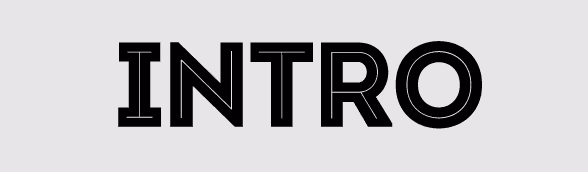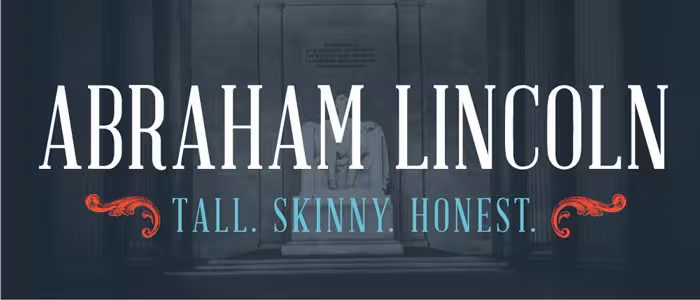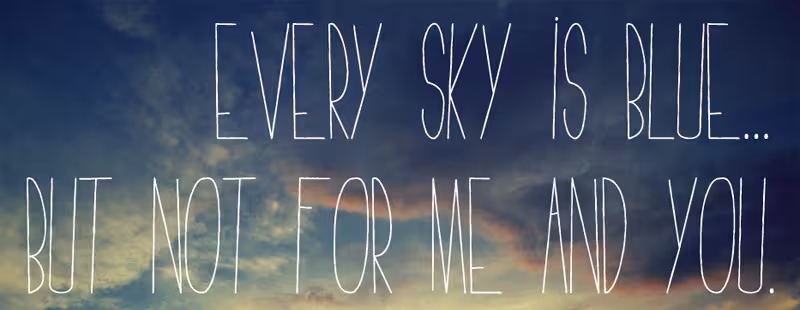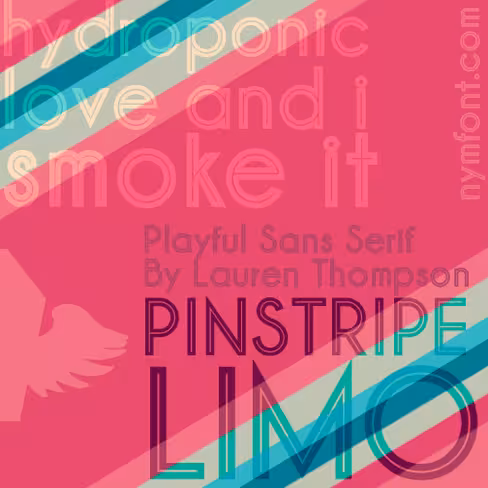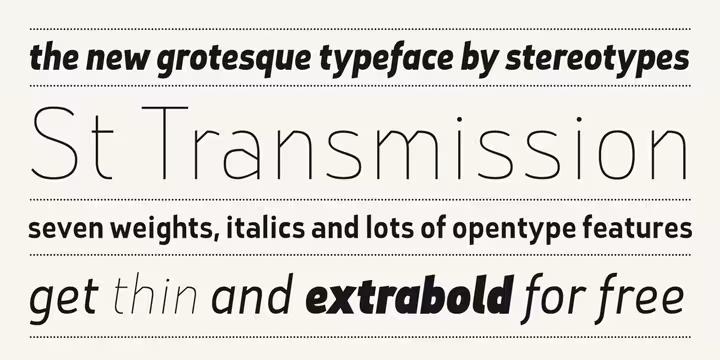
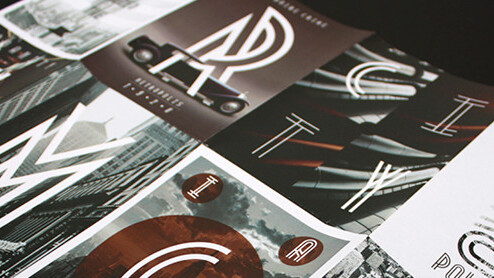
The art of type design is for a special breed of designer. The insane attention to detail required to create typefaces is enough to drive the average person crazy, as every subtle curve and rule matters.
If you’re a novice to the world of typography, you’ll most likely be familiar with text type, or fonts created to be legible and readable at small sizes. Adobe Caslon, for example, is a great text typeface for large amounts of text.
Display typefaces, on the other hand, are less about legibility, (though that’s still important), and more about personality, character and distinctiveness. They’re best for logos, signage and posters, all at larger sizes (around 30 points+). Back in January, we covered a list of 9 inspiring, free display typefaces for you to use in your projects. Now, we’re back with 7 more free display typefaces for any project imaginable:
Cassannet
Atipo, a multi-disciplinary studio from Spain, has recently released an entire typeface dedicated to the charming work of A.M. Cassandre, a French poster artist and typographer. The font is completely free, and only requires a tweet to download, though you also have the option to contribute a donation in support of the creators. Read our full review of the font here.
Metropolis
Metropolis comes from the the industrial movement of the 1920′s where skyscrapers were born. “Using a double line technique, I wanted to create my own Art Deco style font that represented this era. The result is a bold, bumptious typeface with a stolidly calm disposition.”
Intro
What distinguishes Intro is the strongly expressed geometric makeup and structure. The basic letters of the Alphabet like “A”, “O” and “H” are built on principles of simple geometric forms – triangles, circles and squares. In contrast to Futura, which possesses similar styling, Intro preserves the characteristic sharpened edges of the “А”, “V” and “W” letters even in its boldened form.
Faustina
Faustina is a quirky, hand-drawn display face that has a strong indie/hipster appeal. It’s also reminiscent of Where The Wild Things Are.
St Transmission 200
St Transmission 200 is another peculiar face, but with has more precision than Faustina. The interestingly straight lines in the a, n, m and r really define this typeface.
Pinstripe Limo
Although Dafont’s renderings make the font look poor quality, the highly retro Pinstripe Limo typeface is as sleek as it is distinct.
Abraham Lincoln
Inspired by the proportions of the 16th President of the USA, and advertisements/playbills of the 1800s, Abraham Lincoln is a humanistic display face with moderate contrast and sturdy serifs.